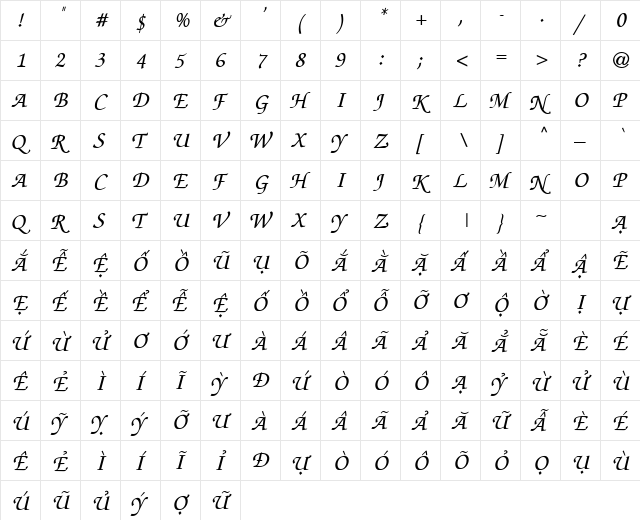
ThaHuongH 1.1 Regular
Design Context for ThaHuongH 1.1 Typeface
ThaHuongH 1.1 takes a measured approach to typography — its balanced proportions and neutral character make it a reliable workhorse for both digital and print work.